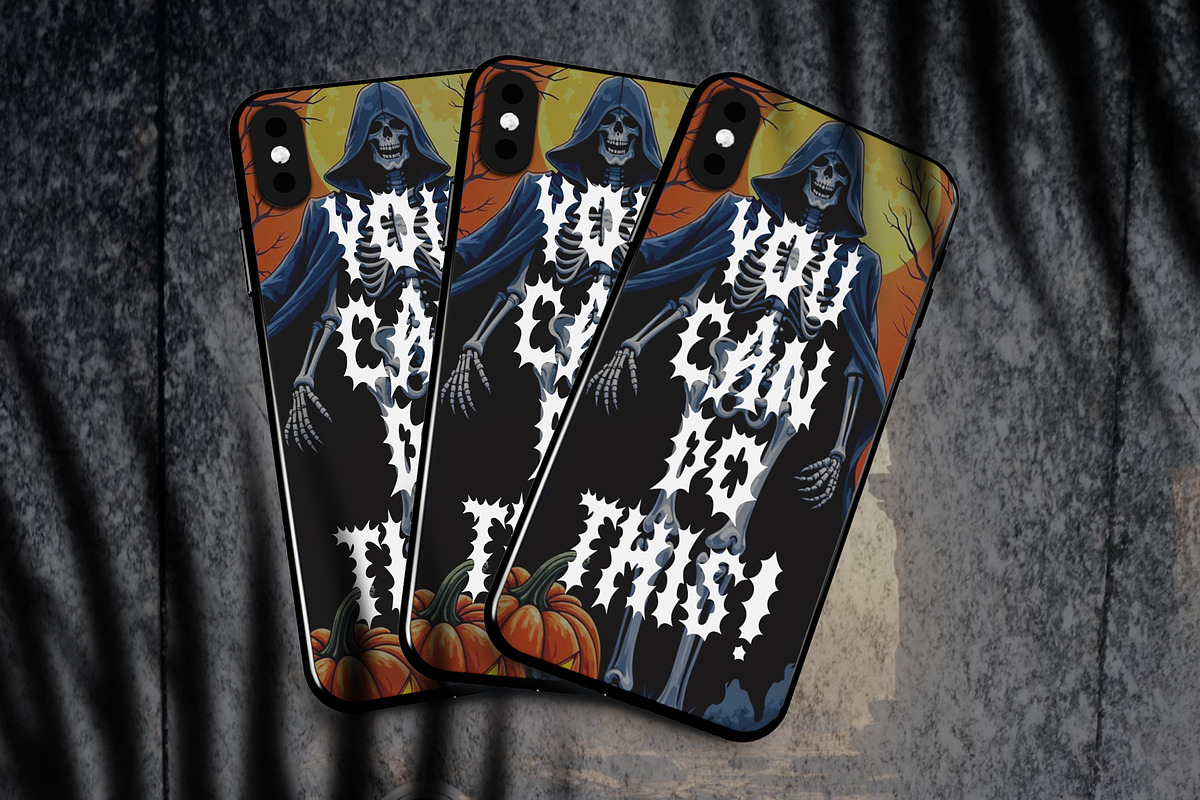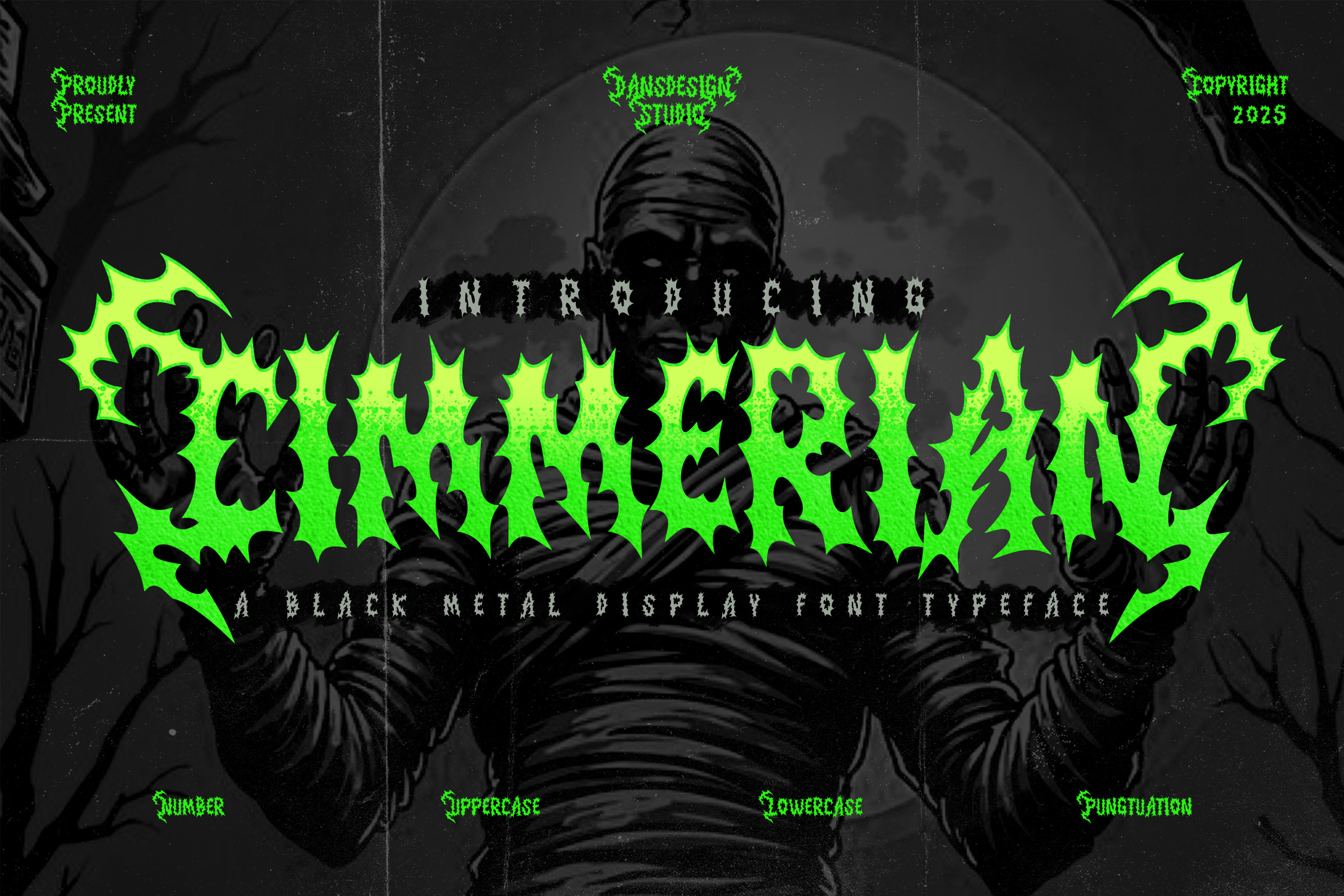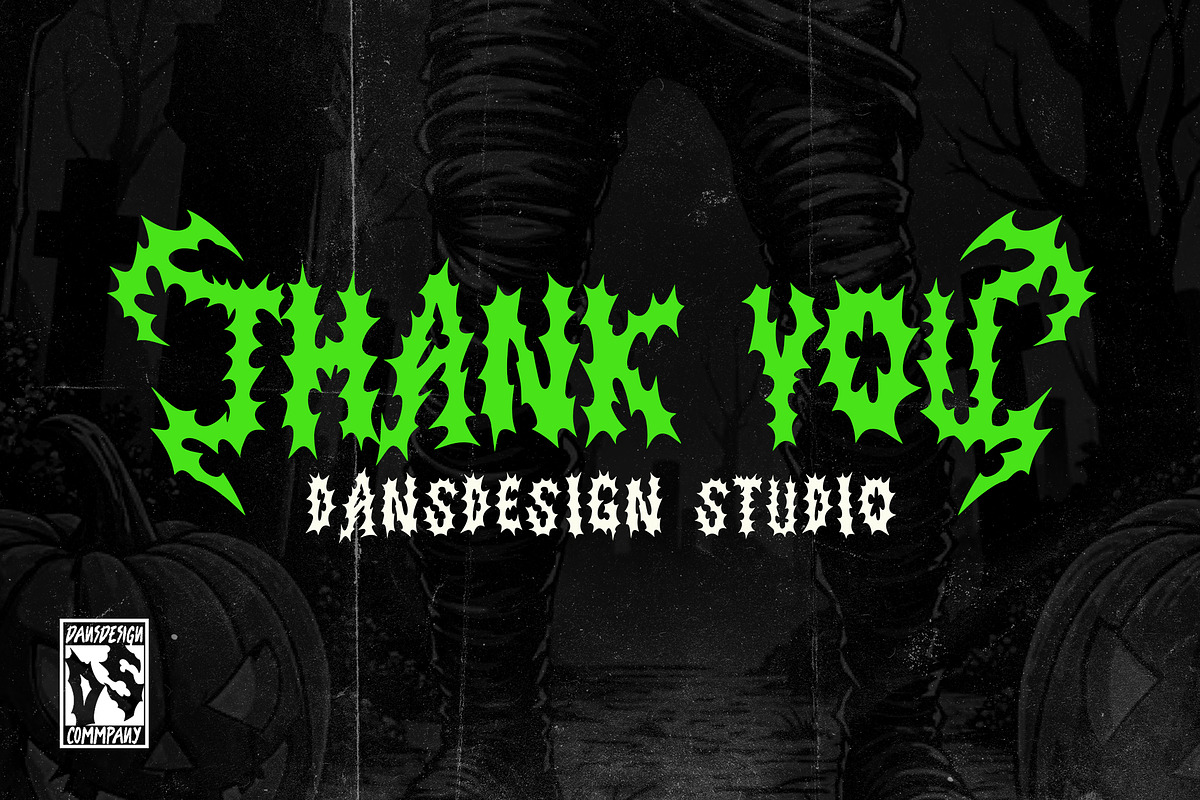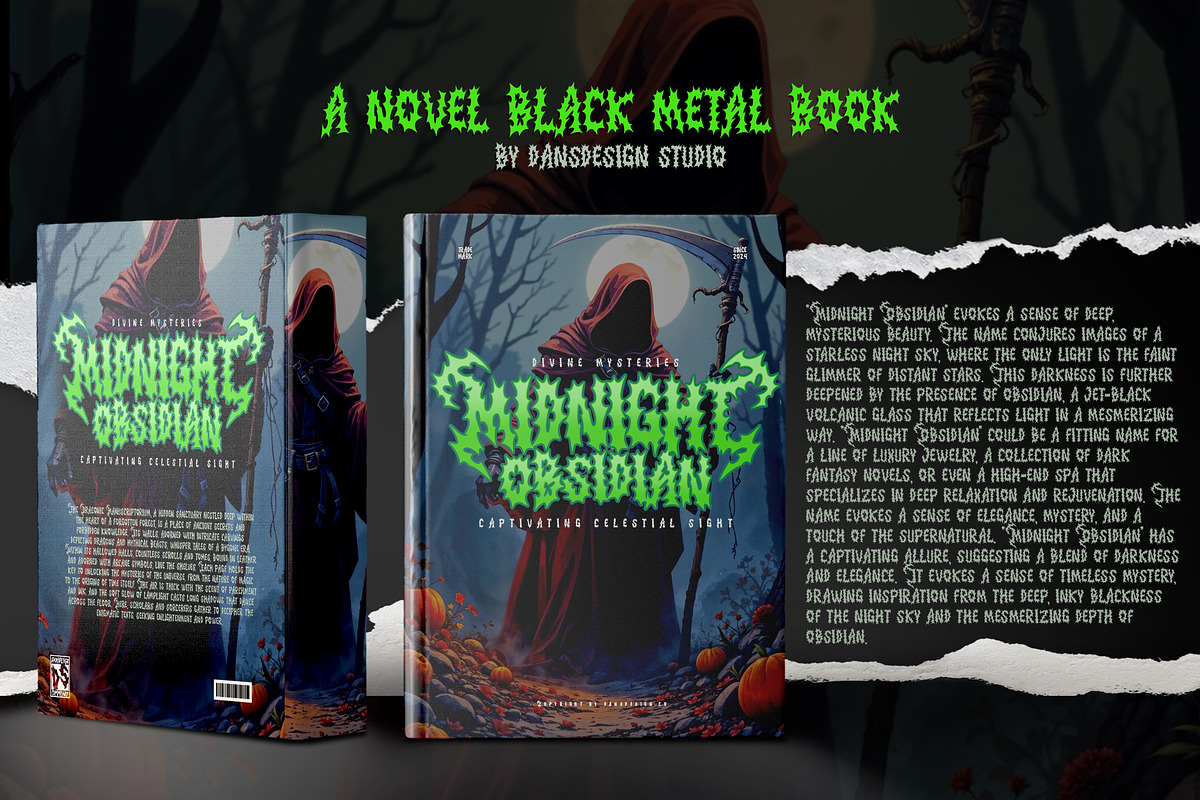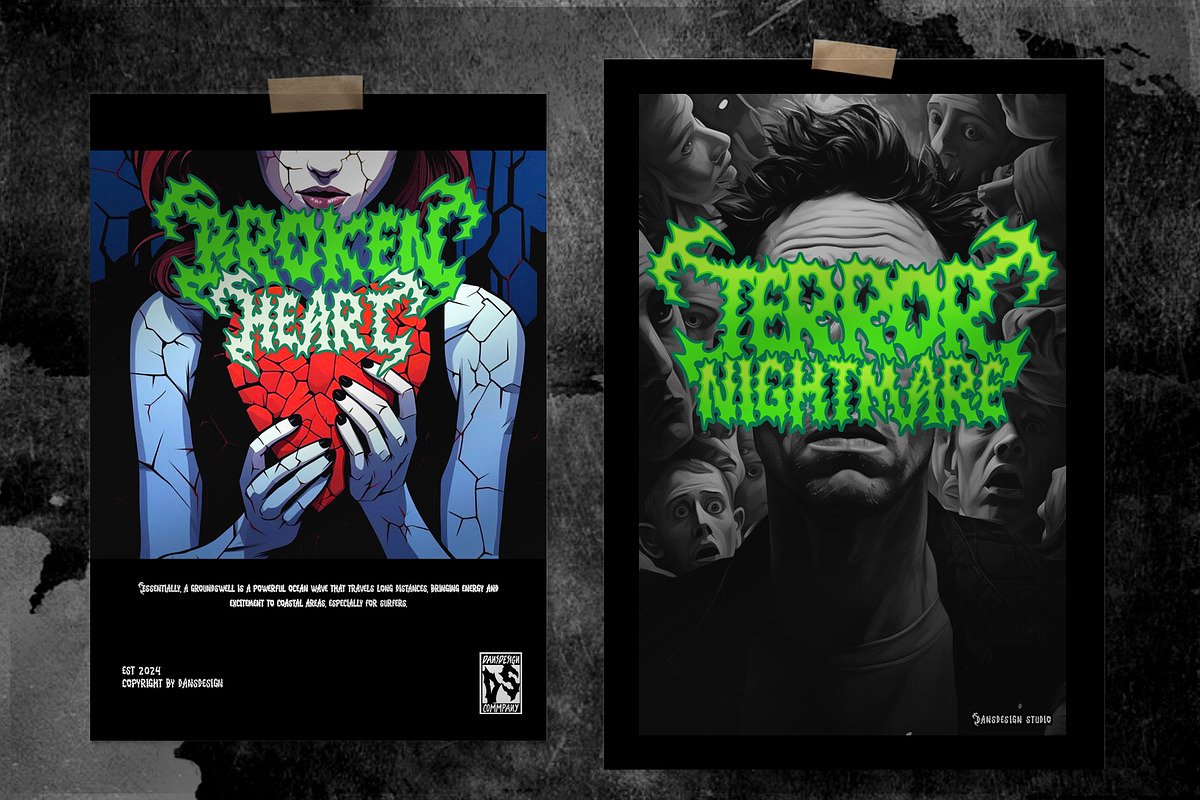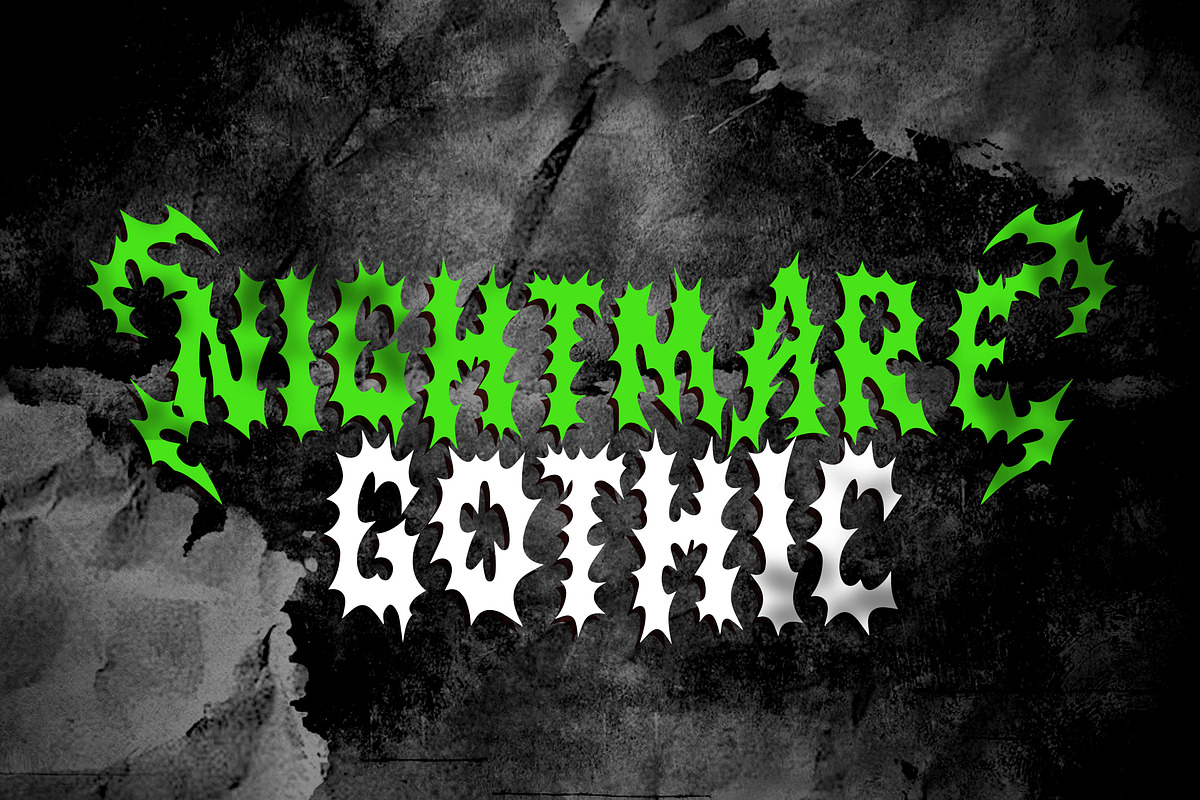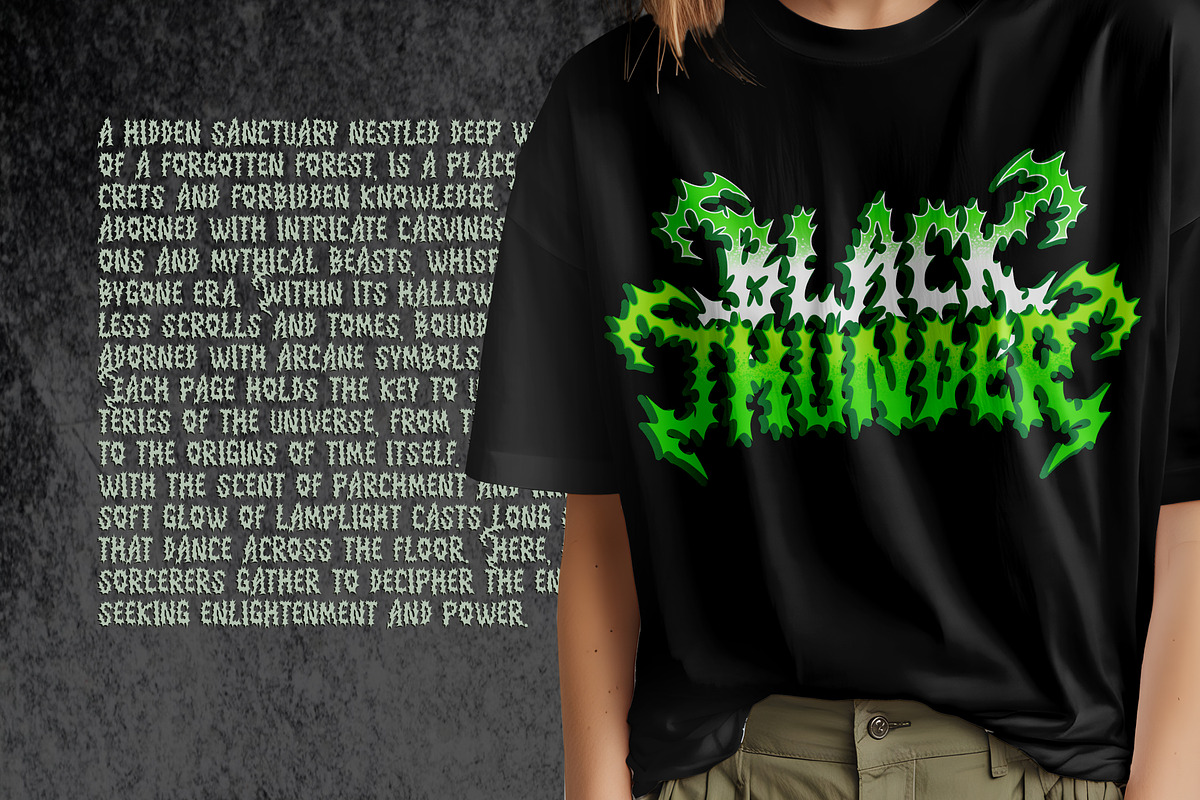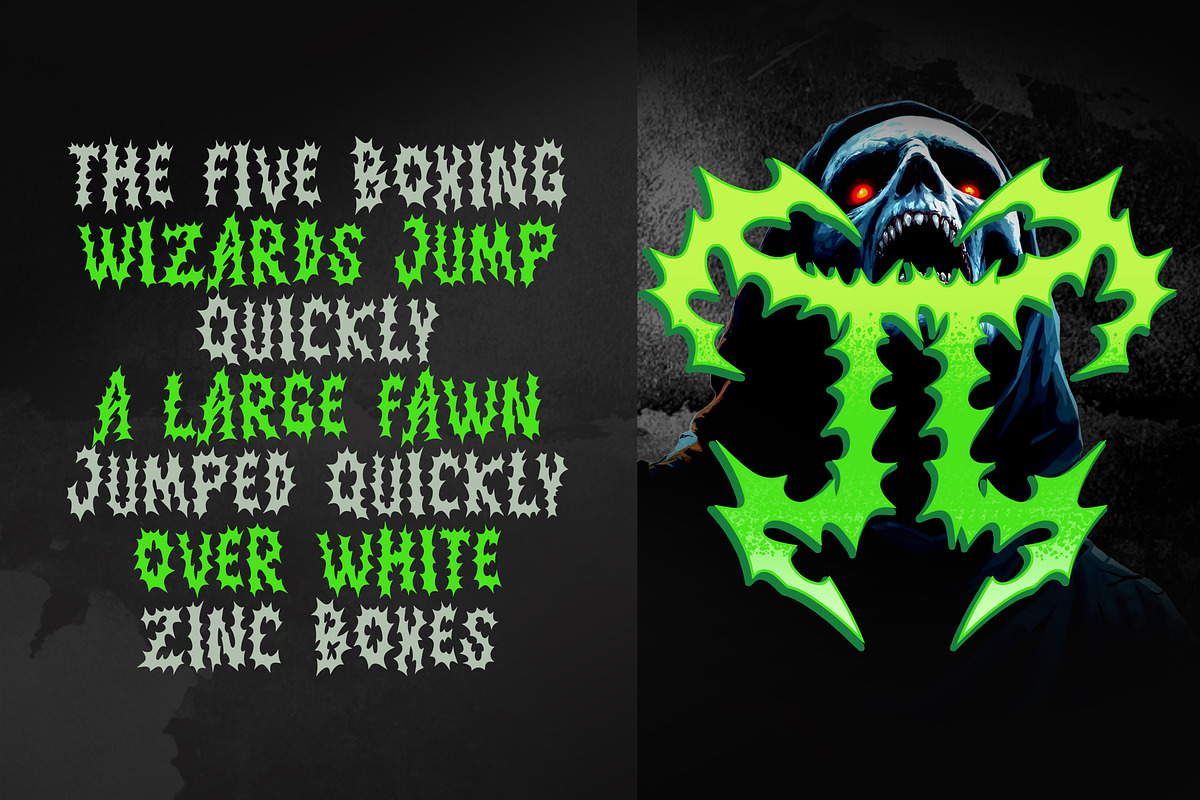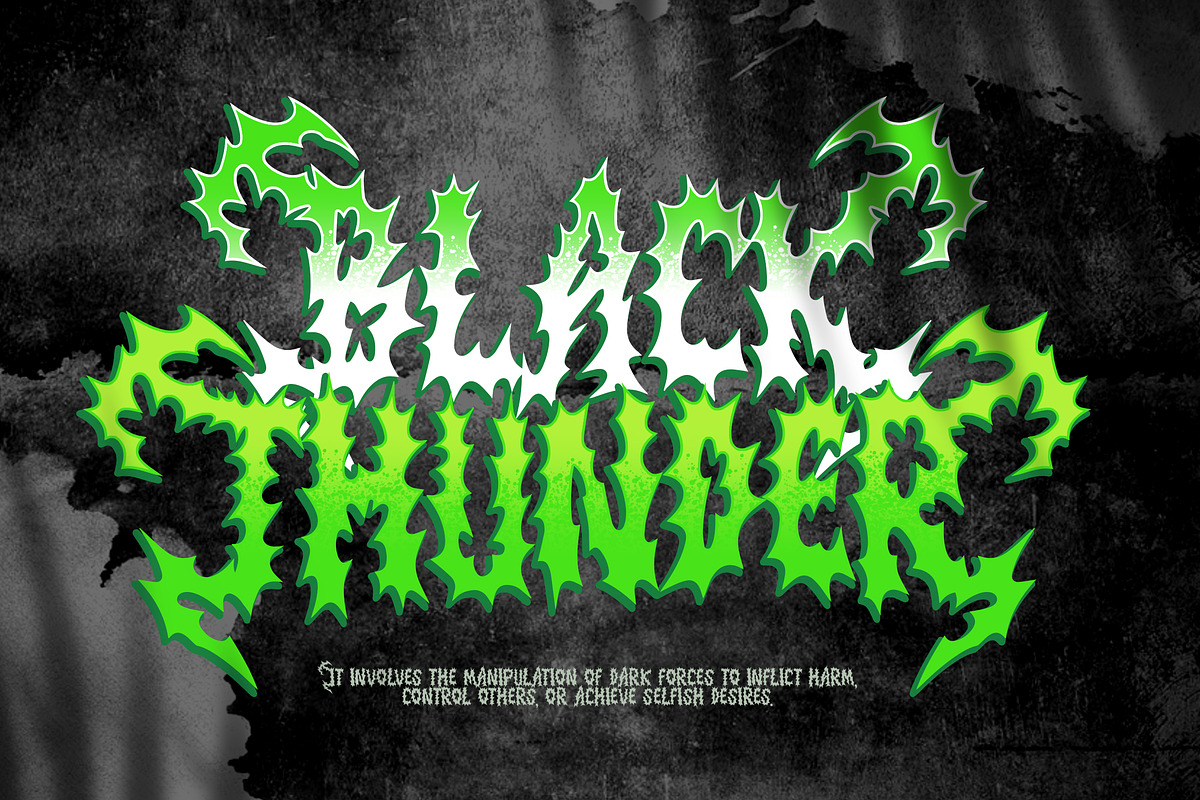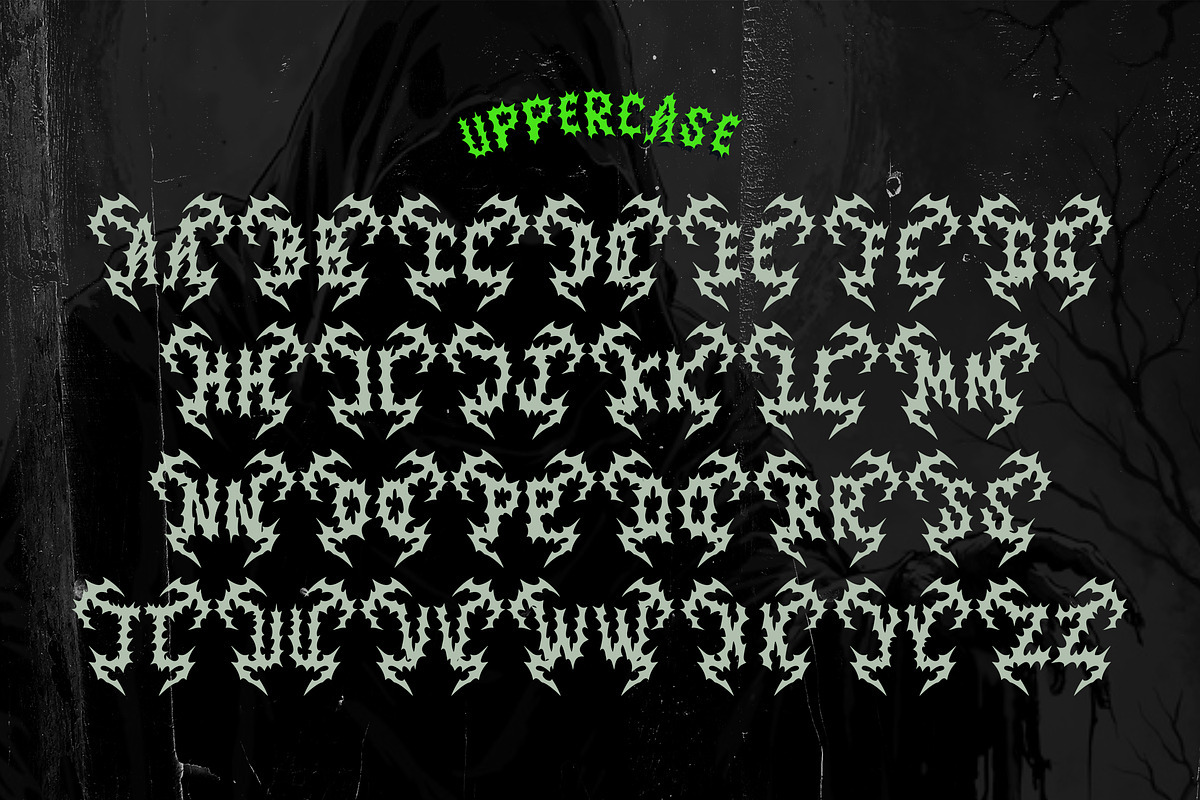
Cimmerian Blackmetal Liggature Font
Cimmerian – Blackletter Font with Custom Metal Ligatures
Cimmerian is a high-detail blackletter display font designed specifically for extreme aesthetics like metal music, horror visuals, and dark tattoo branding. What sets Cimmerian apart is its custom-designed ligatures, inspired by raw, aggressive black metal logos. These ligatures give your typography a handcrafted, sinister edge—without the need for manual edits.
Whether you're designing for a black metal band, an underground tattoo brand, or occult-themed merchandise, Cimmerian delivers impact with every character. Key Features:
Let your work scream with attitude, rebellion, and darkness. Cimmerian is not just a font – it’s a tool for visual rebellion.